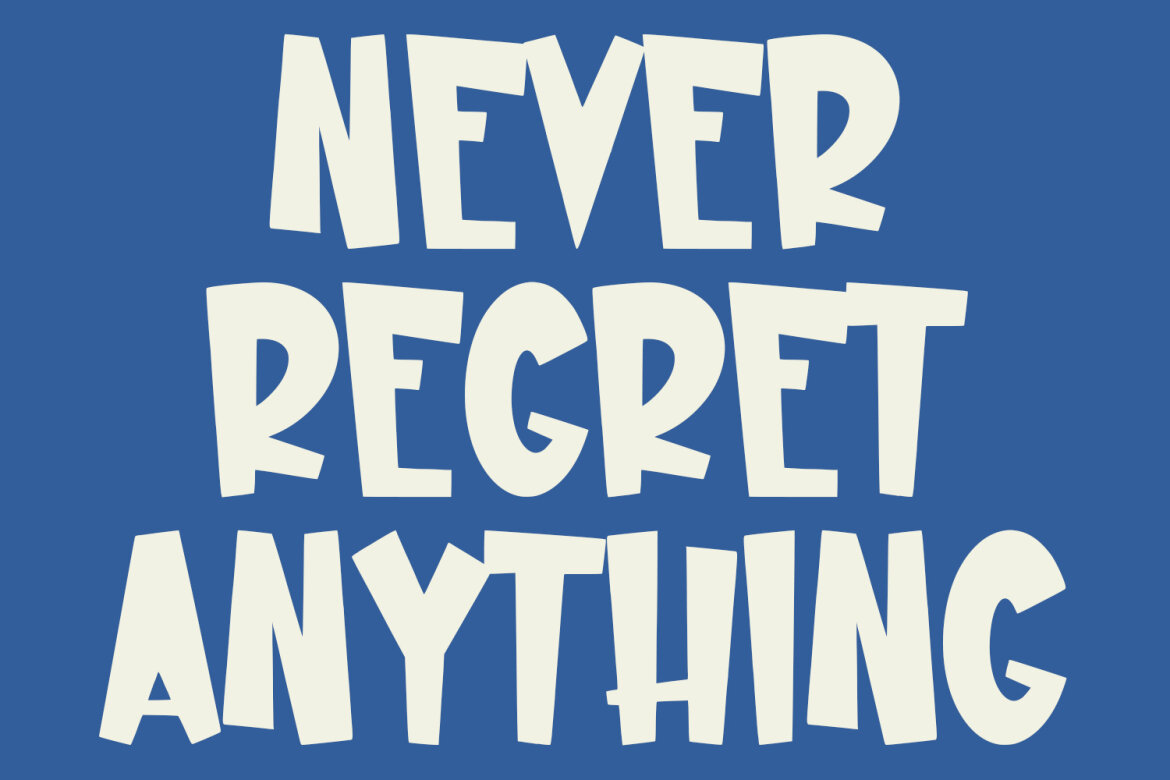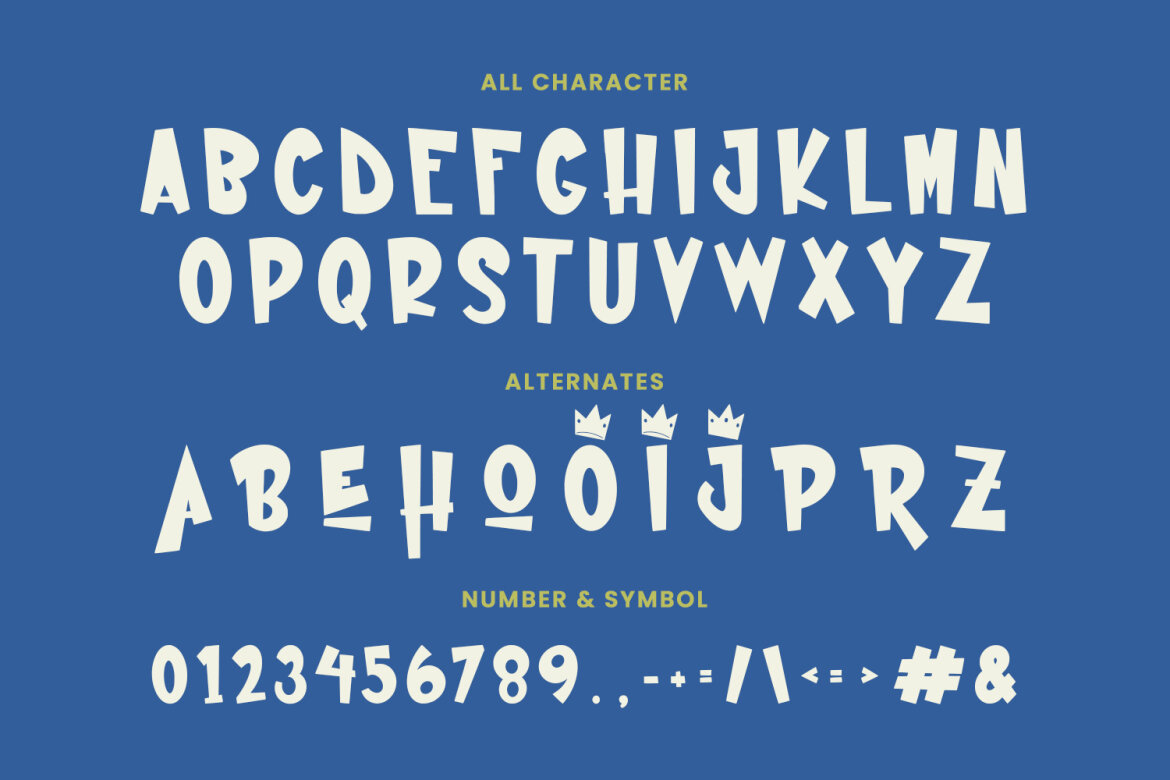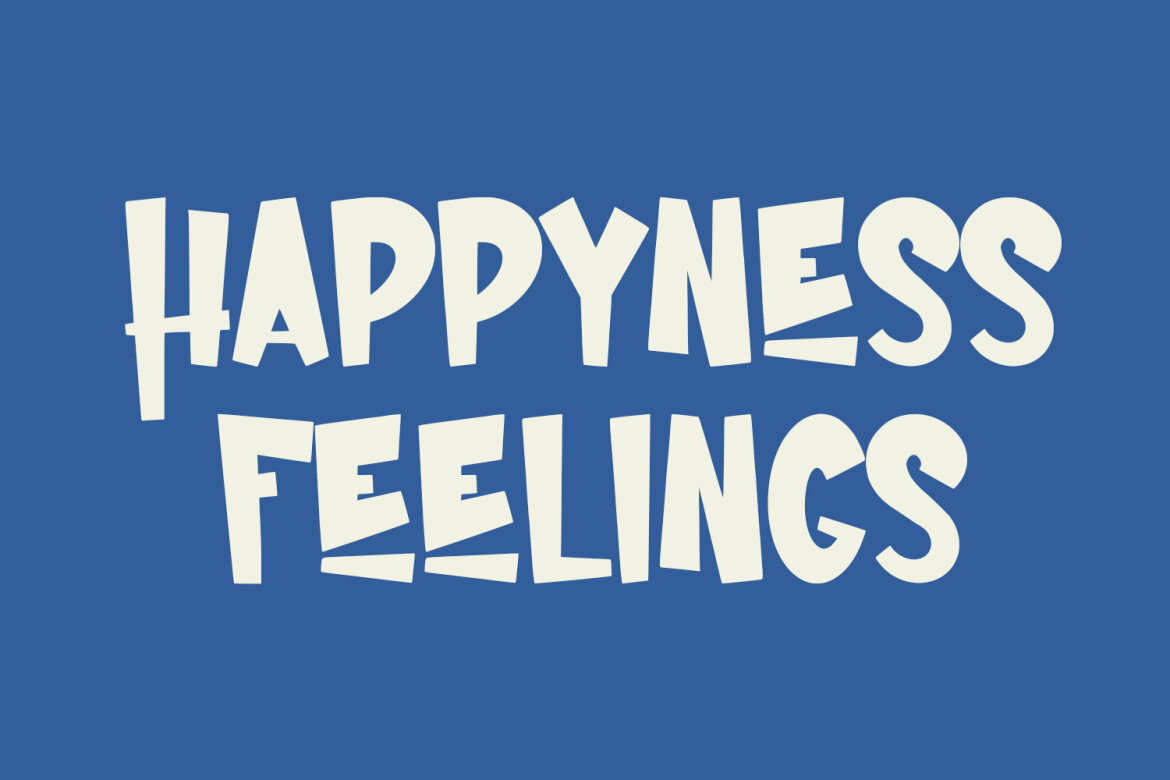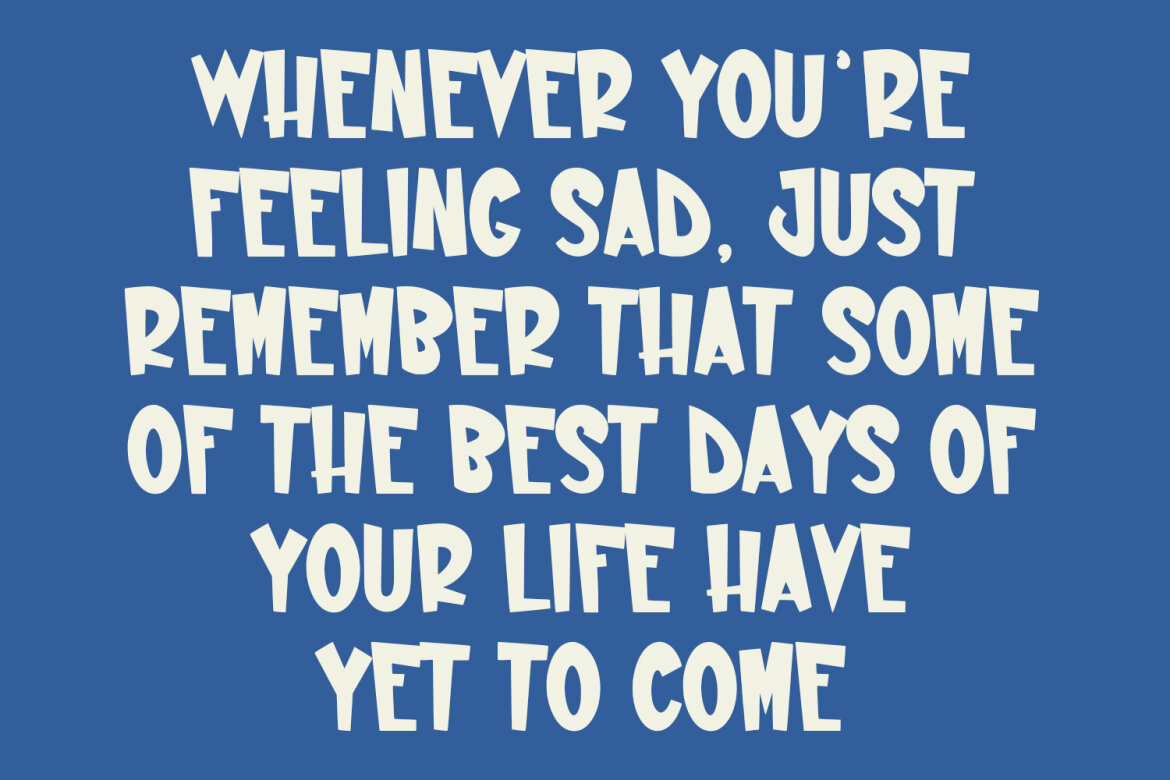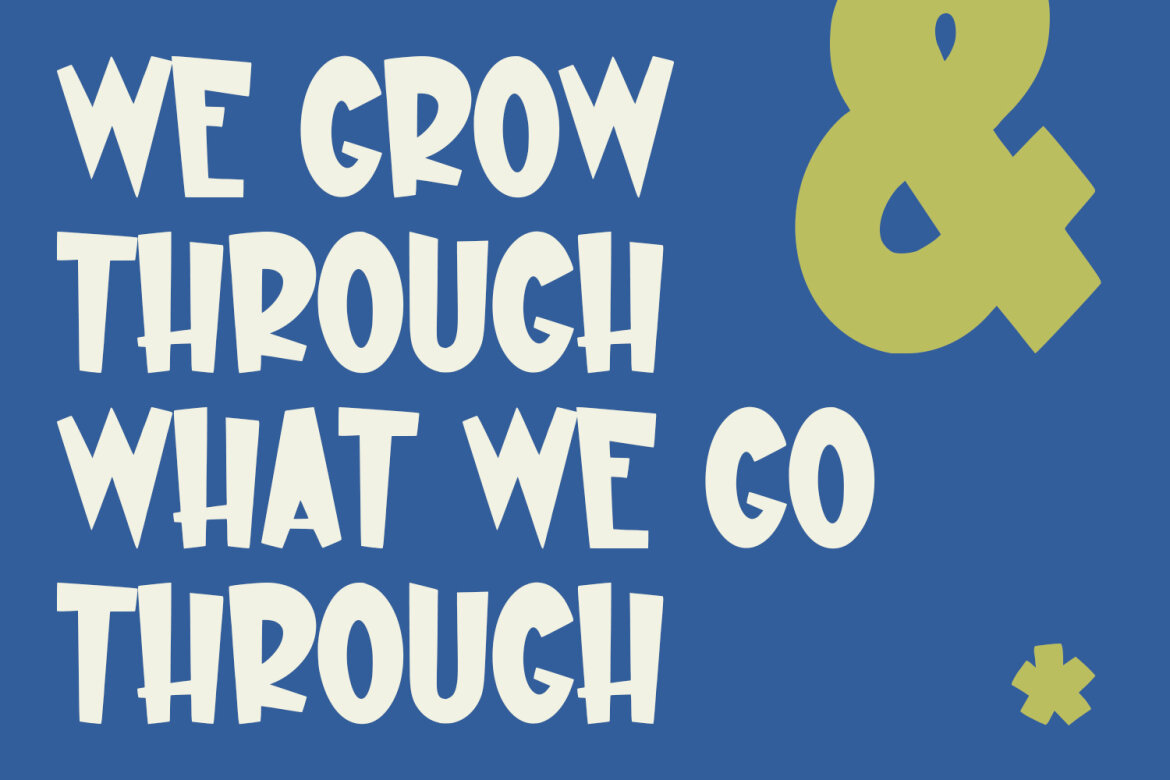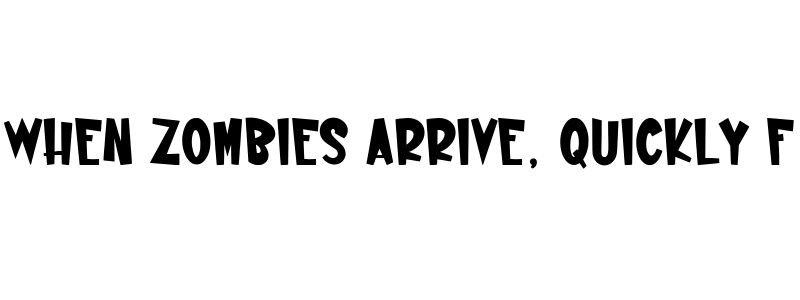
Booperz Funny FREE Typeface
Booperz
Booperz funny display typeface. Heavy stroke, fun character with a bit of ligatures. To give you an extra creative work. Booperz funny display typeface support multilingual more than 100+ language. This font is good for logo design, Social media, Movie Titles, Books Titles, a short text even a long text letter and good for your secondary text font with script or serif. Make a stunning work with Booperz funny display typeface.